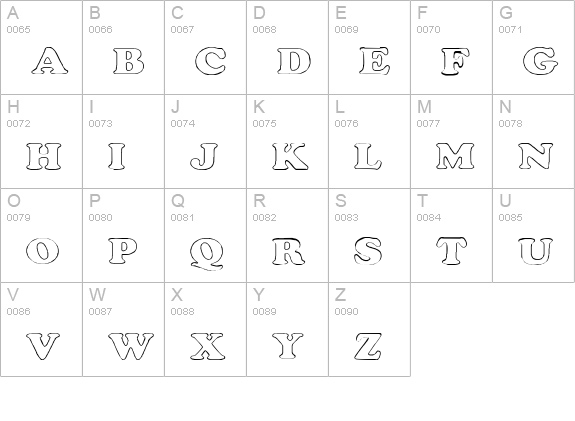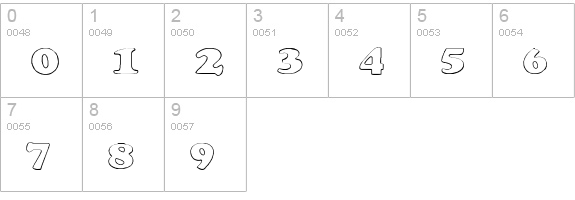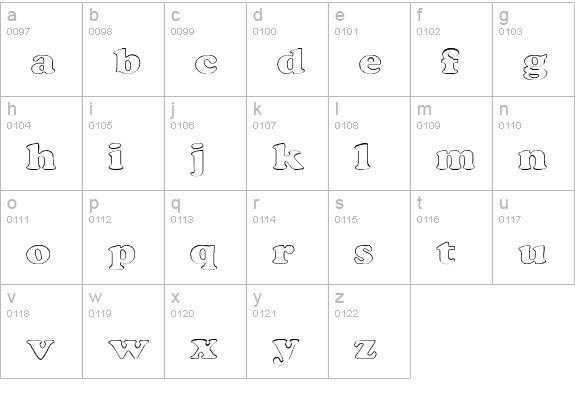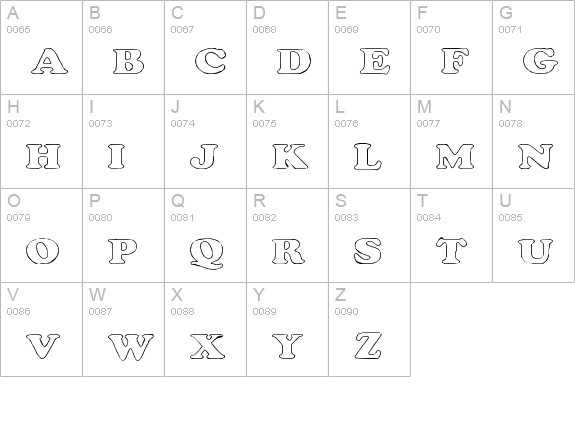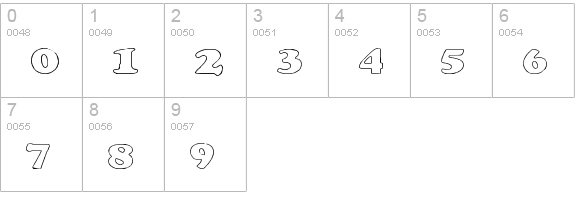
Rockletter Transparent Font Details
Rockletter Transparent font is a modern and versatile typeface that exudes a sleek and sophisticated aesthetic. With its clean lines and transparent appearance, this font is perfect for adding a contemporary touch to any design project. Whether you're creating a logo, signage, or digital artwork, Rockletter Transparent font will help your text stand out with its unique style. The best part? Rockletter Transparent font is available for free download at FontsMarket.com. This means you can easily access this stunning font and use it in your personal or commercial projects without any cost. Don't miss out on the opportunity to enhance your designs with the elegance and charm of Rockletter Transparent font. Download it today and start creating beautiful typographic compositions that will captivate your audience.